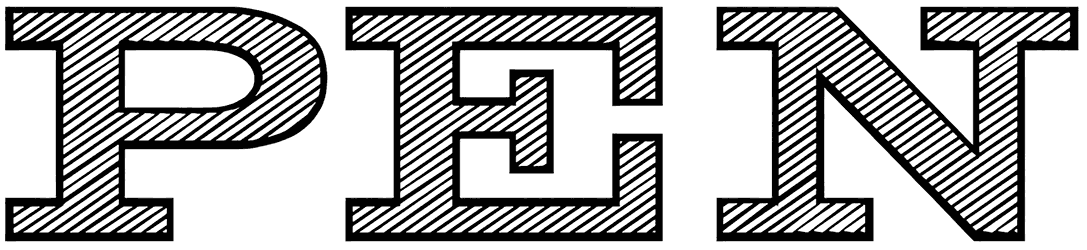
Pen Font
Pen is a blast from the past and takes us back to a time when things were simpler. With its old and straightforward aesthetics, this Cross-hatched font can display an image of school days and convey a pleasant nostalgia.
But this slab serif font is not just a sign of the past but a versatile tool that can be used in logos, posters, and advertisements. Although lowercase letters and numbers are leaked, the Pen font can offer a level of originality with its classic appeal.